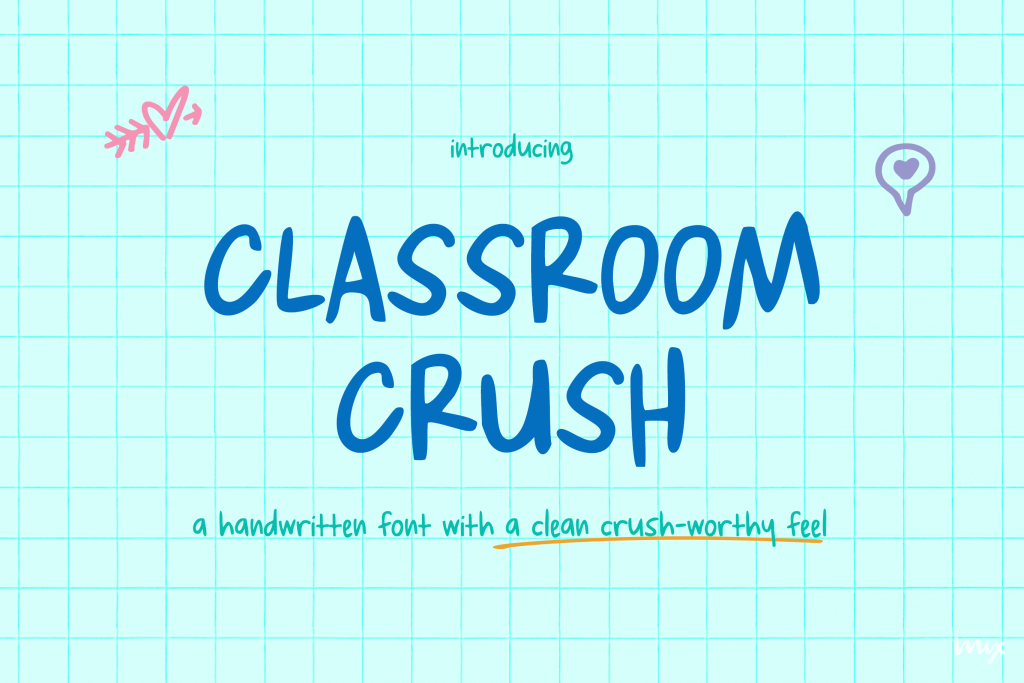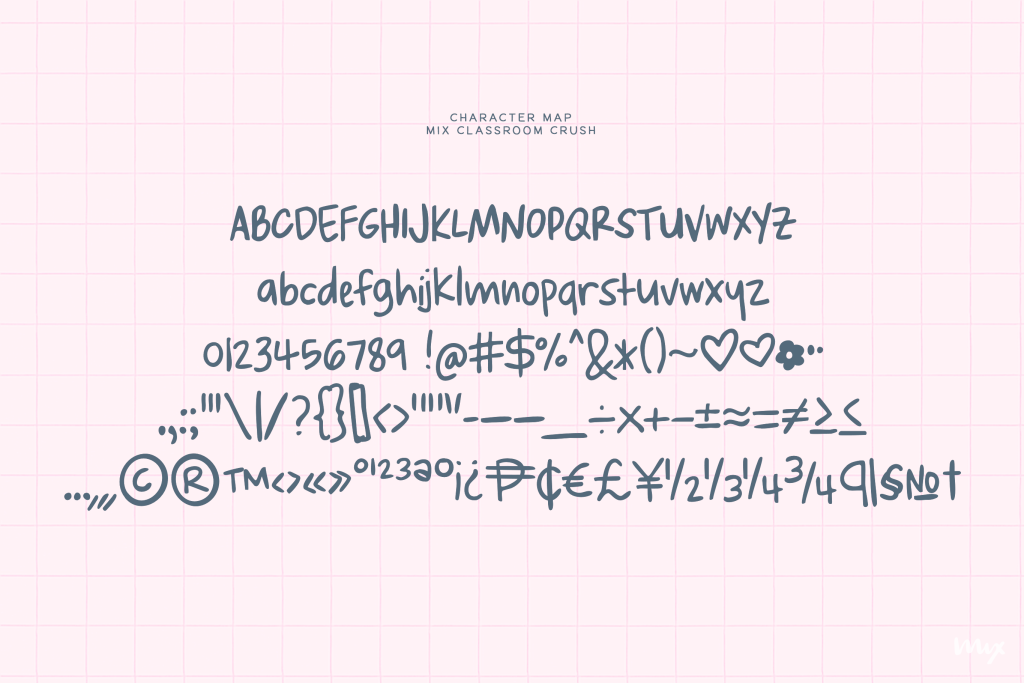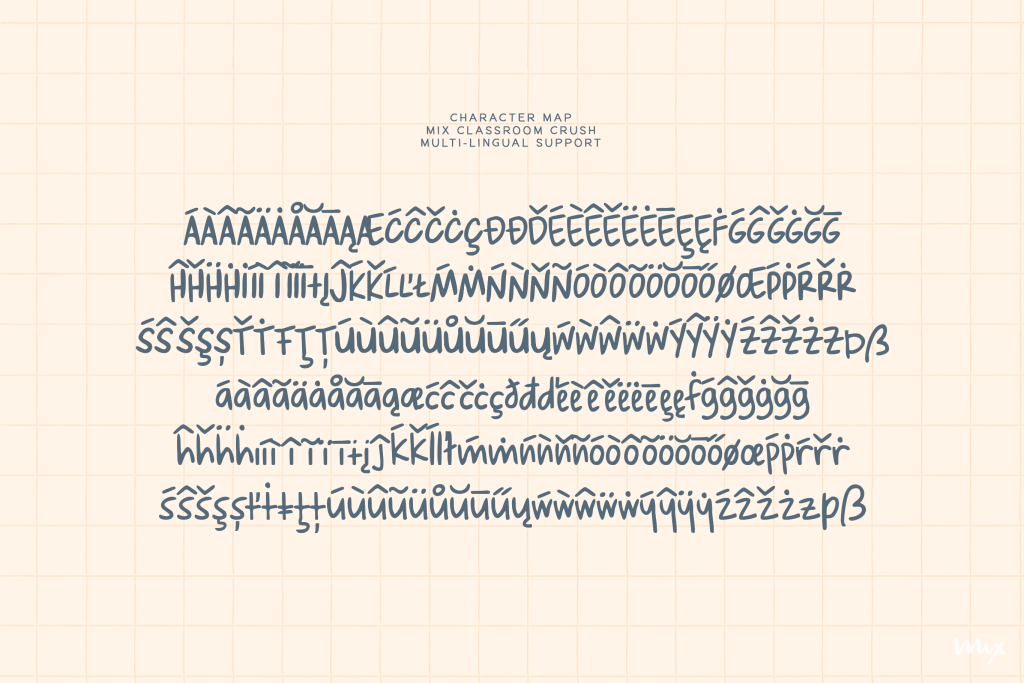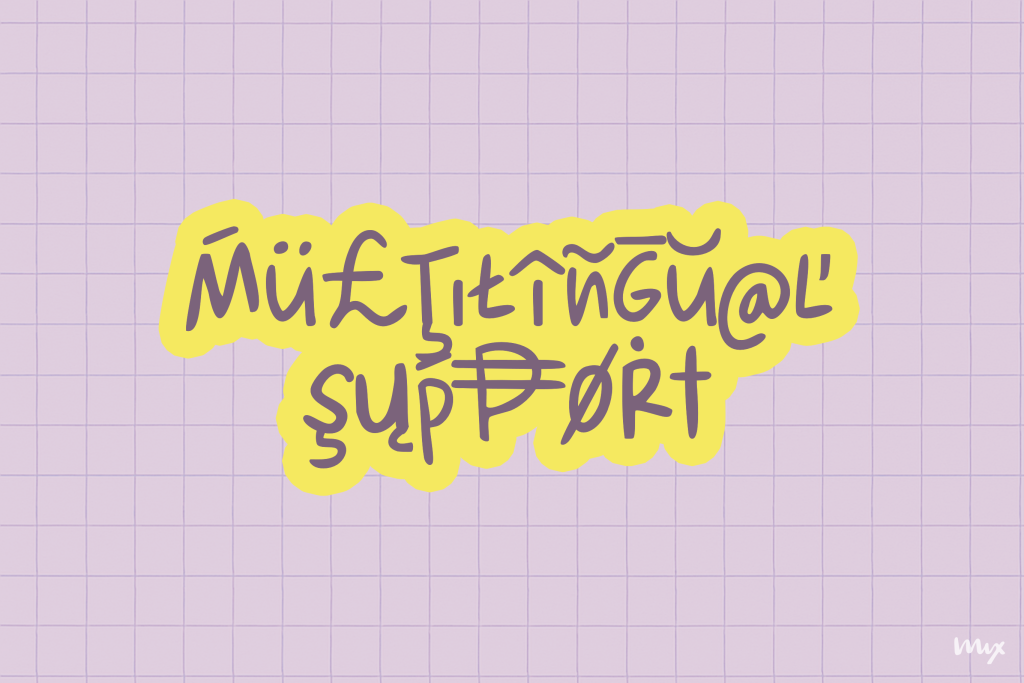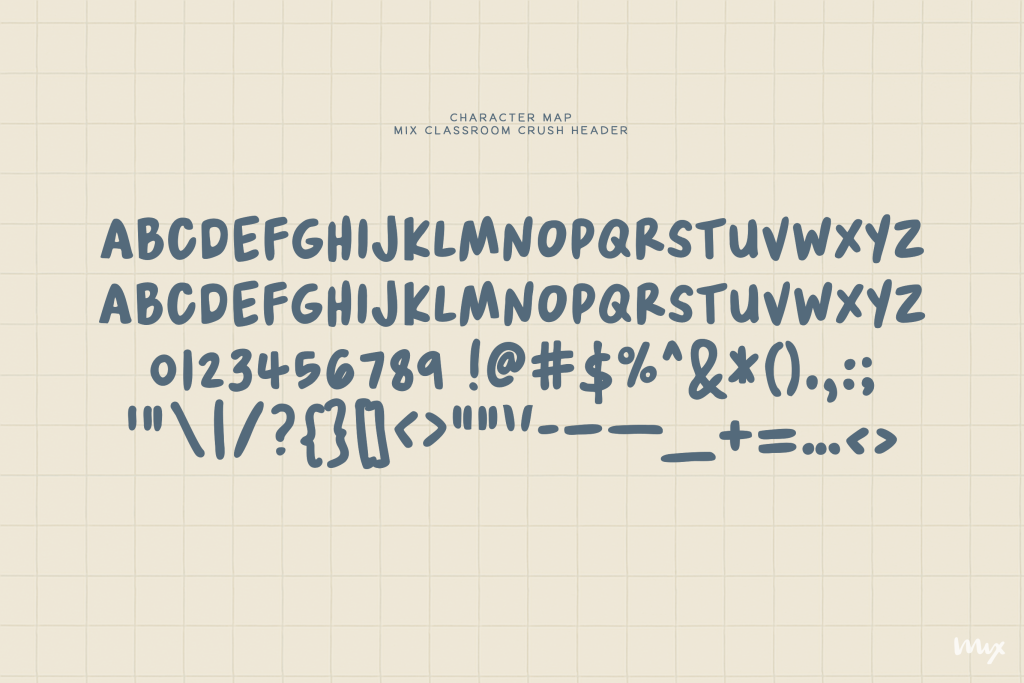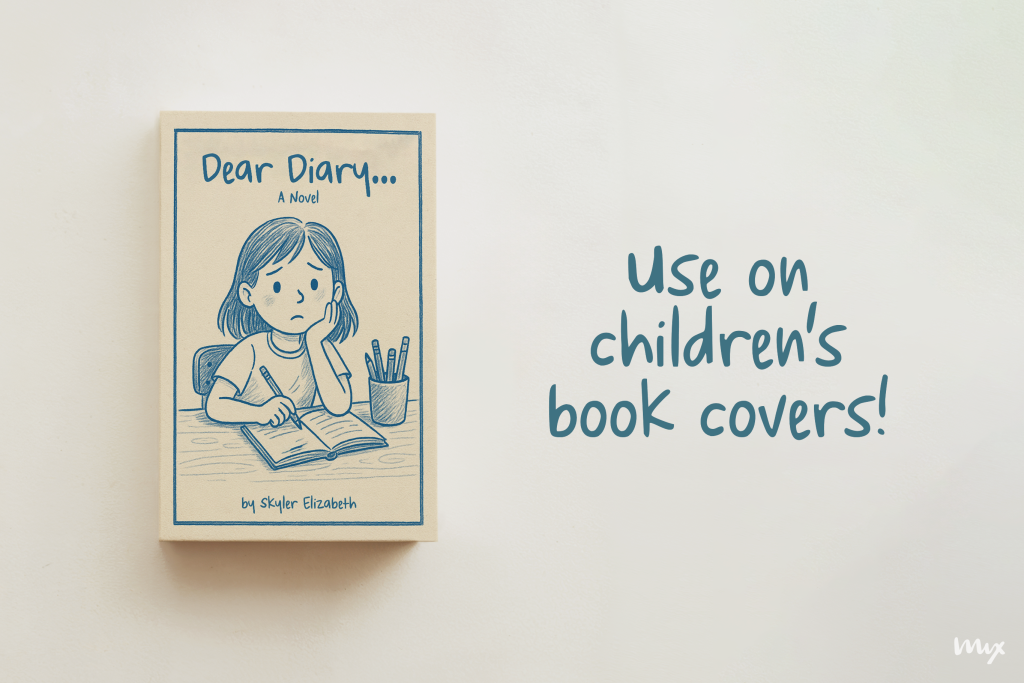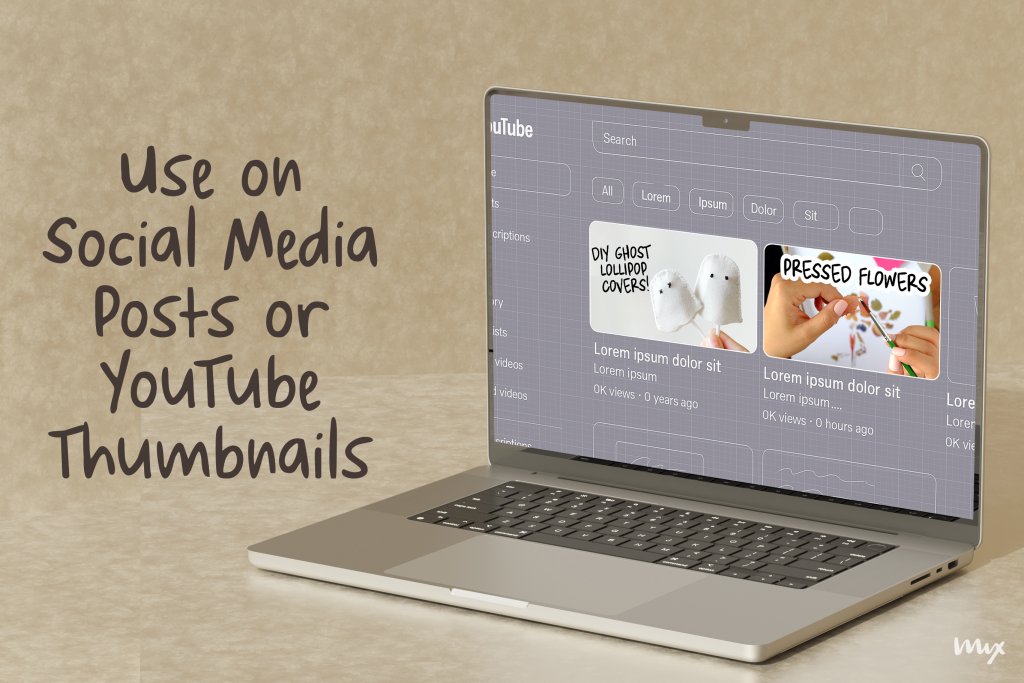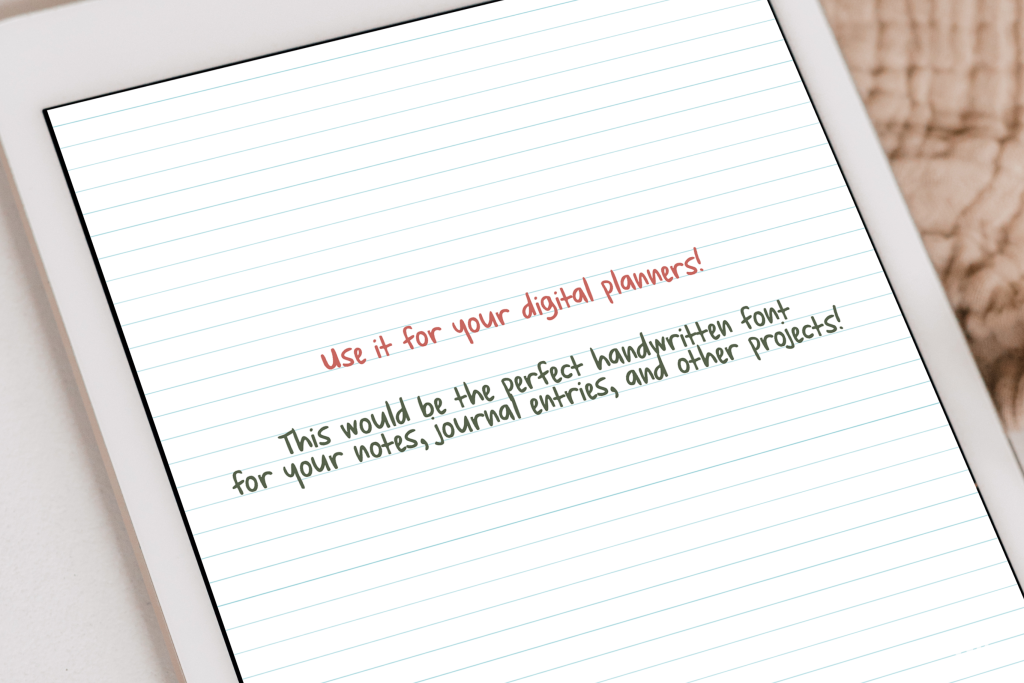
Meet CLASSROOM CRUSH, a handwritten font that’s part sweet, part smart, and 100% legible. Think notebook scribbles minus the mess, or the kind of handwriting your favorite teacher had when they wrote on the board (the one who always gave bonus points).
Now with a bold all-caps sibling, CLASSROOM CRUSH HEADERS, for when you need to shout nicely.
This font keeps things casual but clear, making it ideal for:
- worksheets and planners
- YouTube thumbnails
- journal prompts
- crafty packaging
- digital stickers
- anything that needs a dash of personality without looking chaotic
It’s neat, friendly, and totally approachable—perfect for classroom creators, lifestyle vloggers, and anyone trying to pass the vibe check and the spelling test.
- Full uppercase and lowercase
- Numbers, punctuation, and symbols
- Multilingual support
- Bold uppercase headers set
Whether you’re making lesson slides, scrapbooking captions, or a cute book for your kid’s first-grade memories, CLASSROOM CRUSH shows up like the overachiever font you never knew you needed.